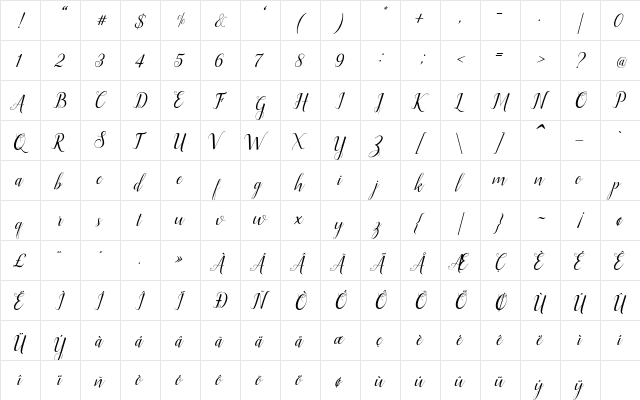
Ellizabeth Regular
Design Context for Ellizabeth Typeface
Ellizabeth is a composed and adaptable typeface that performs quietly and consistently across a wide range of design contexts.